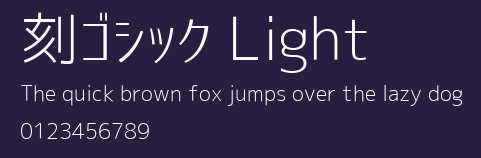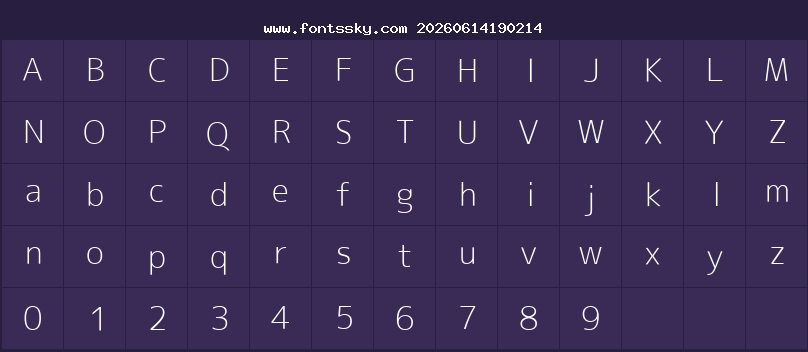
• Font Name: 刻ゴシック Light
• Full Font Name: 刻ゴシック Light
About 刻ゴシック Light.ttf
刻ゴシック Light.ttf is a modern, elegant sans-serif font designed for ultimate readability and visual harmony. Perfect for branding, headlines, web design, and print materials.